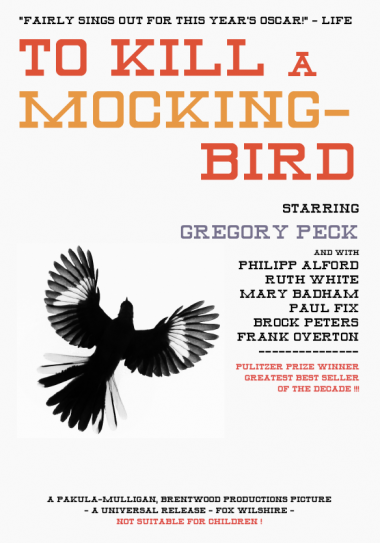
Magic Sam
Another 60s-Style Slab Serif font, suitable for Headlines...hope you like it! Check out the example! Maybe I´ll add some numbers later.
Very nice. I really like the K.